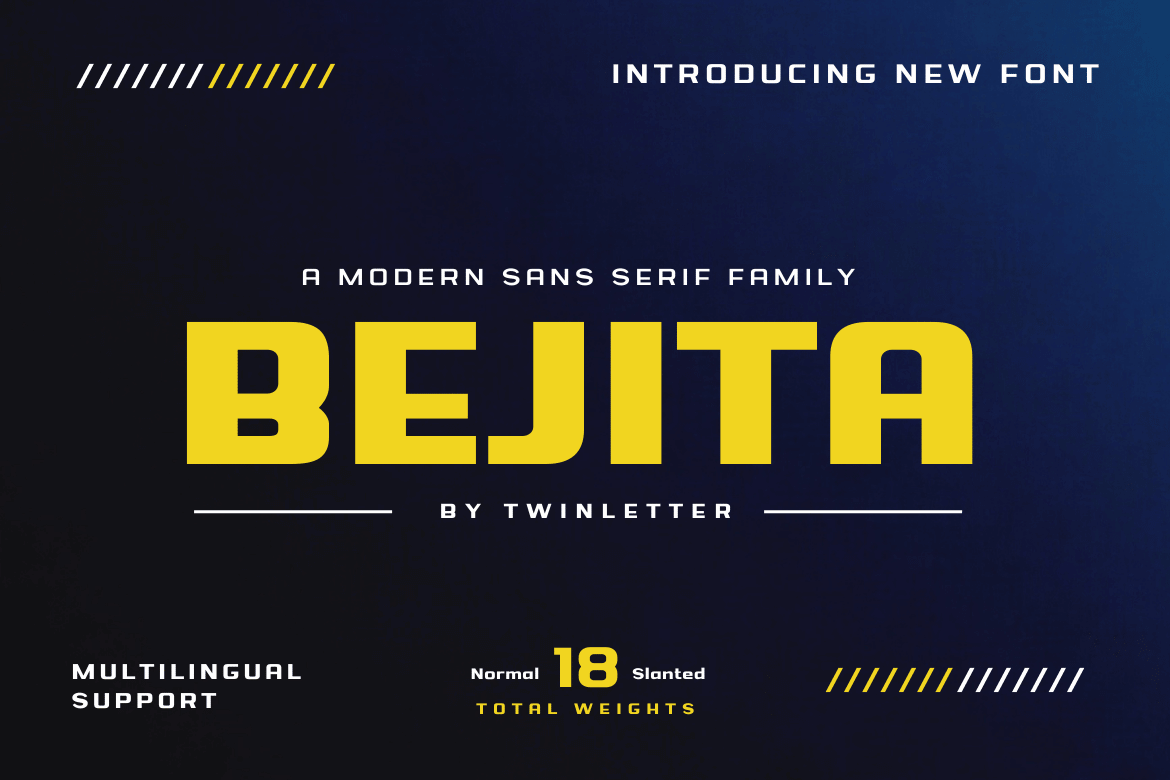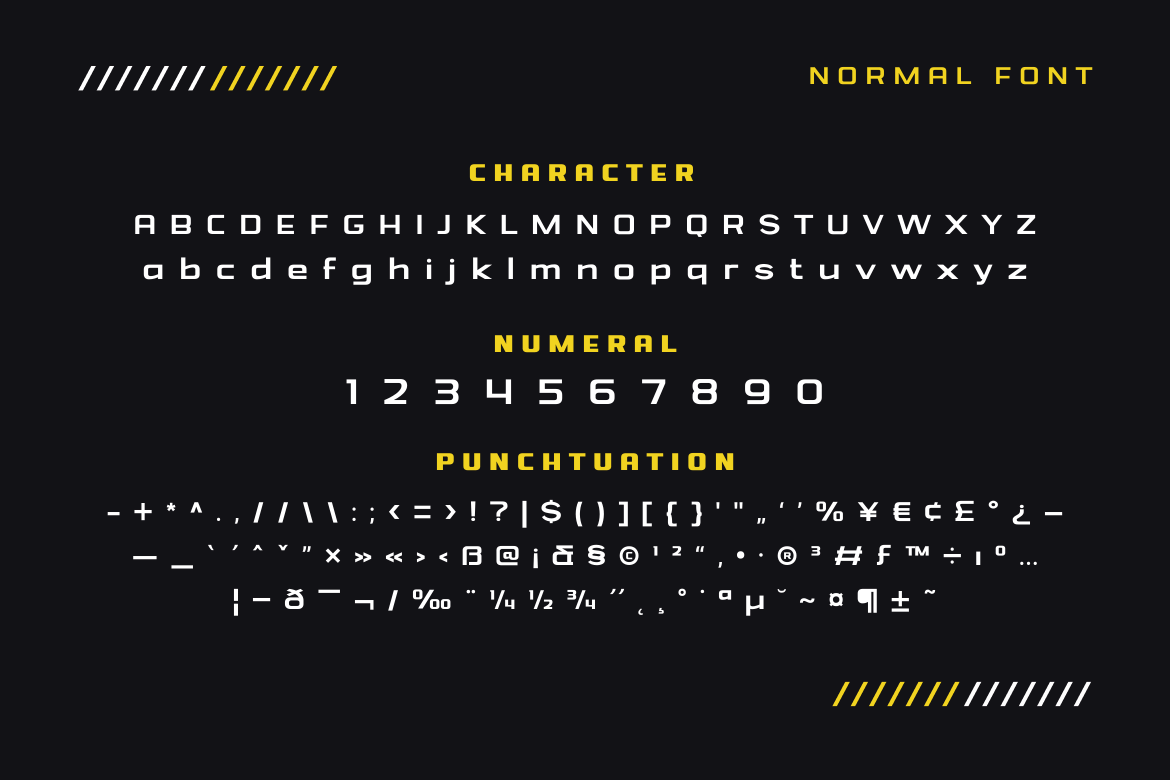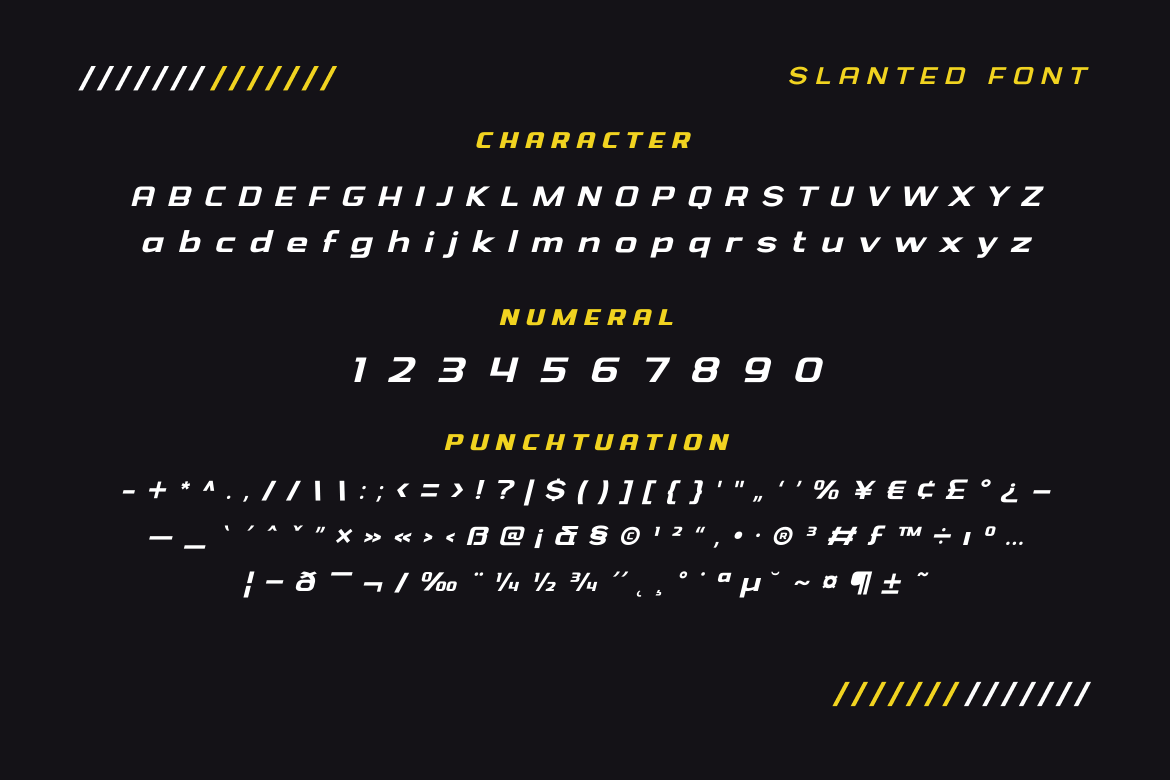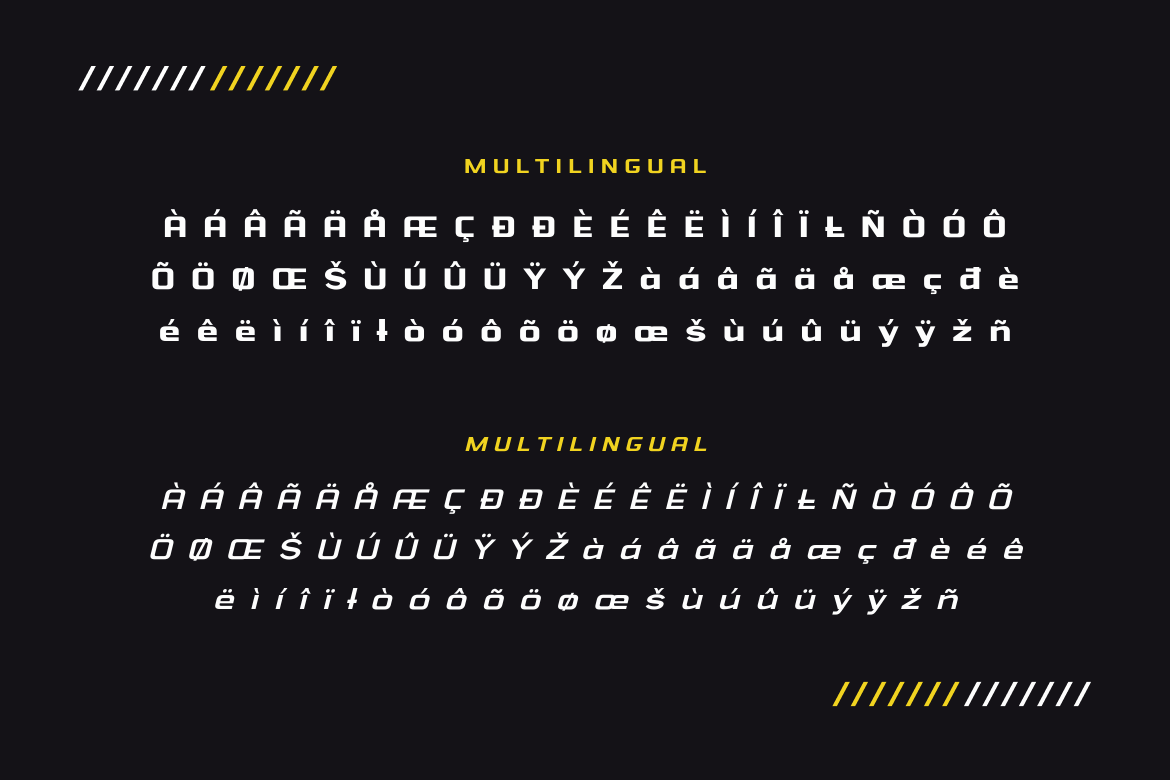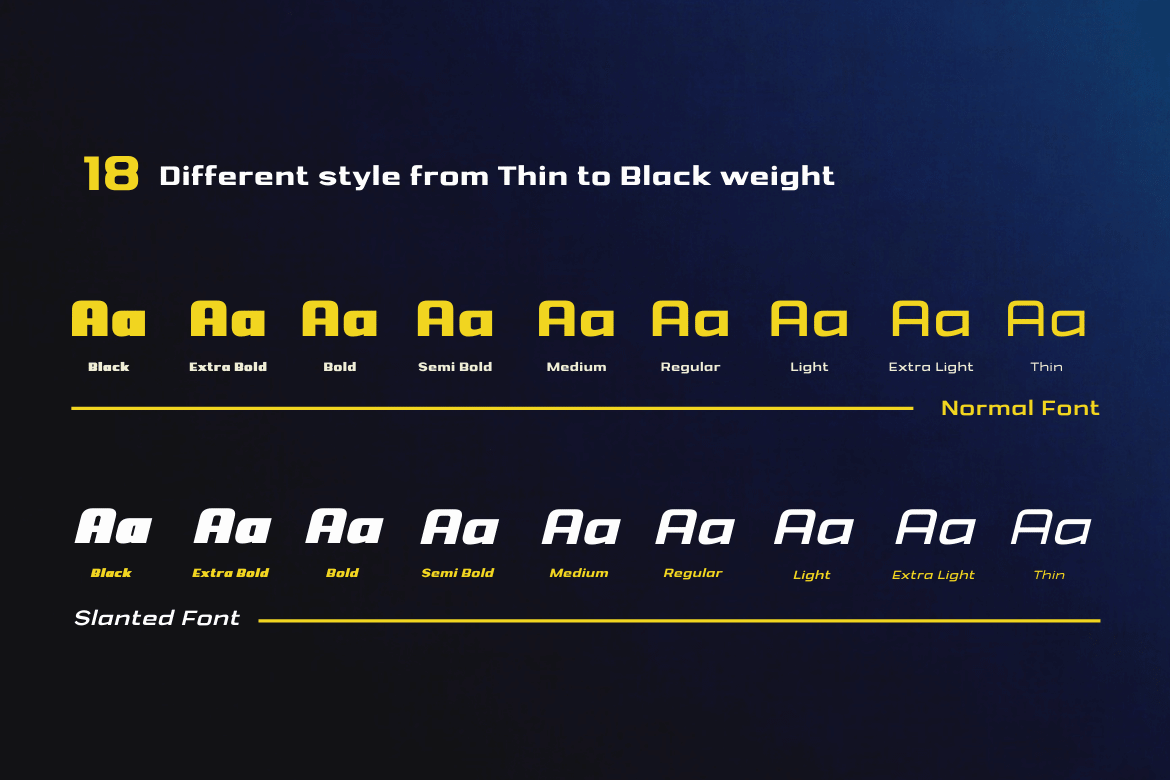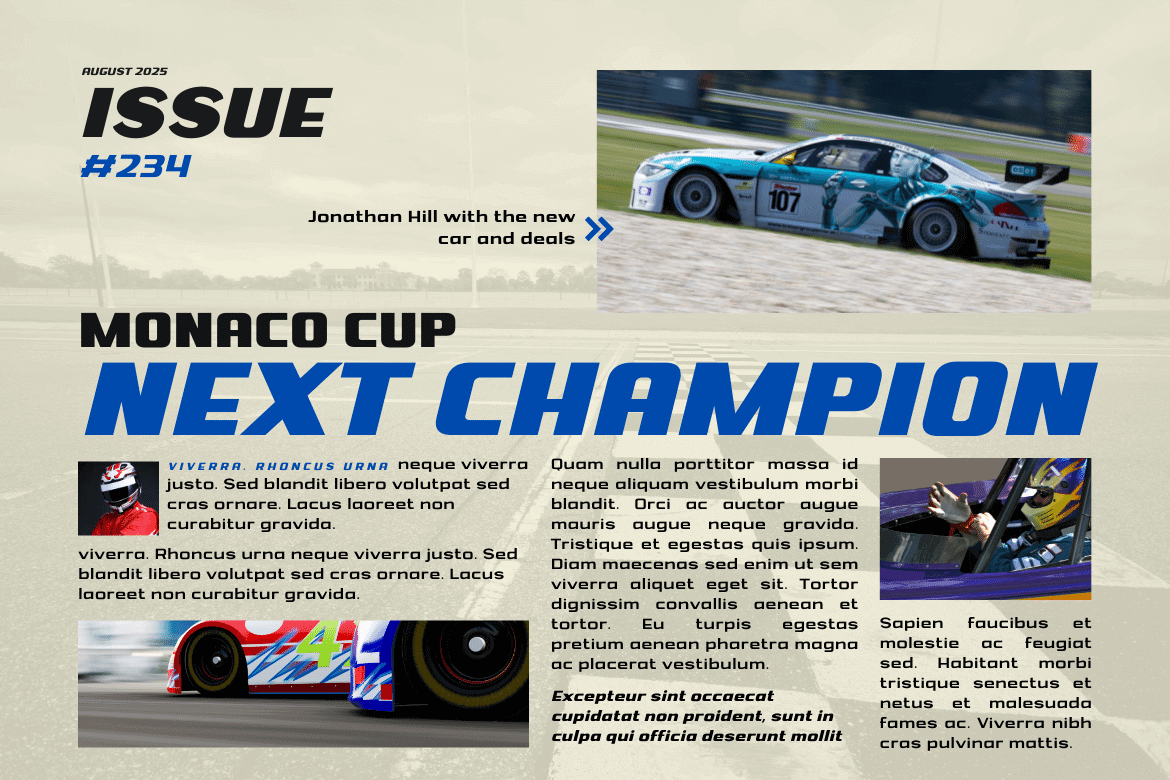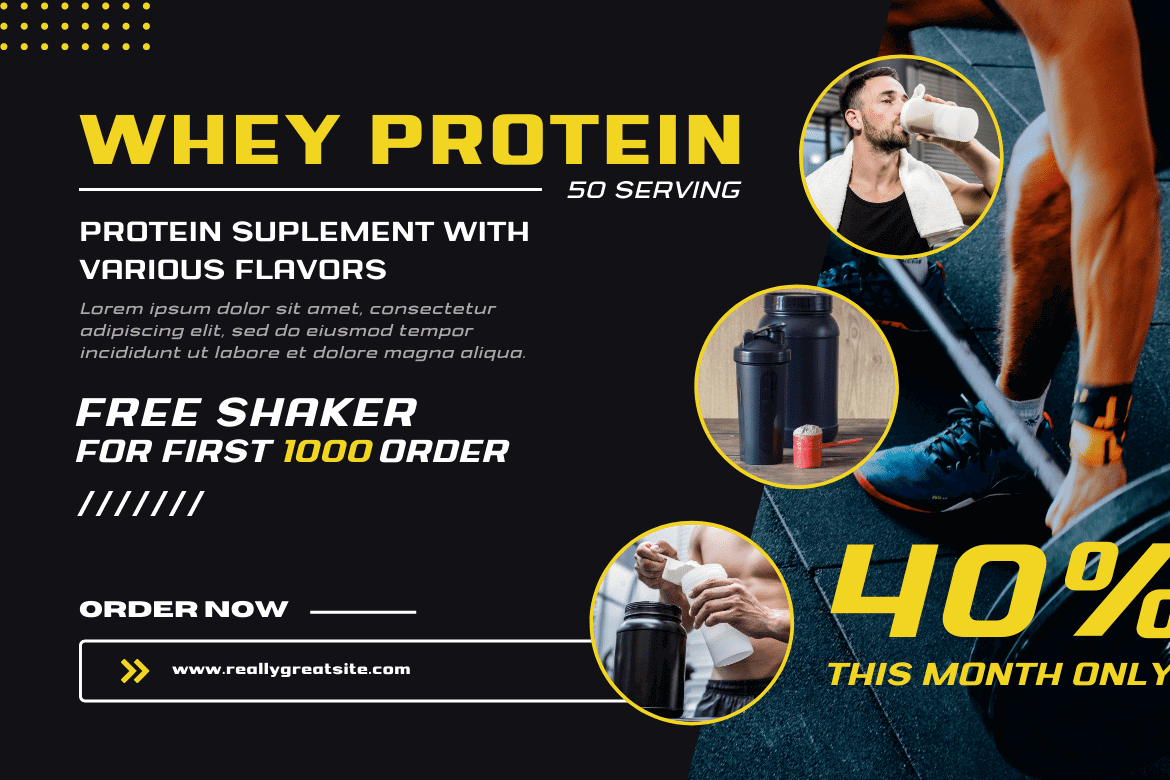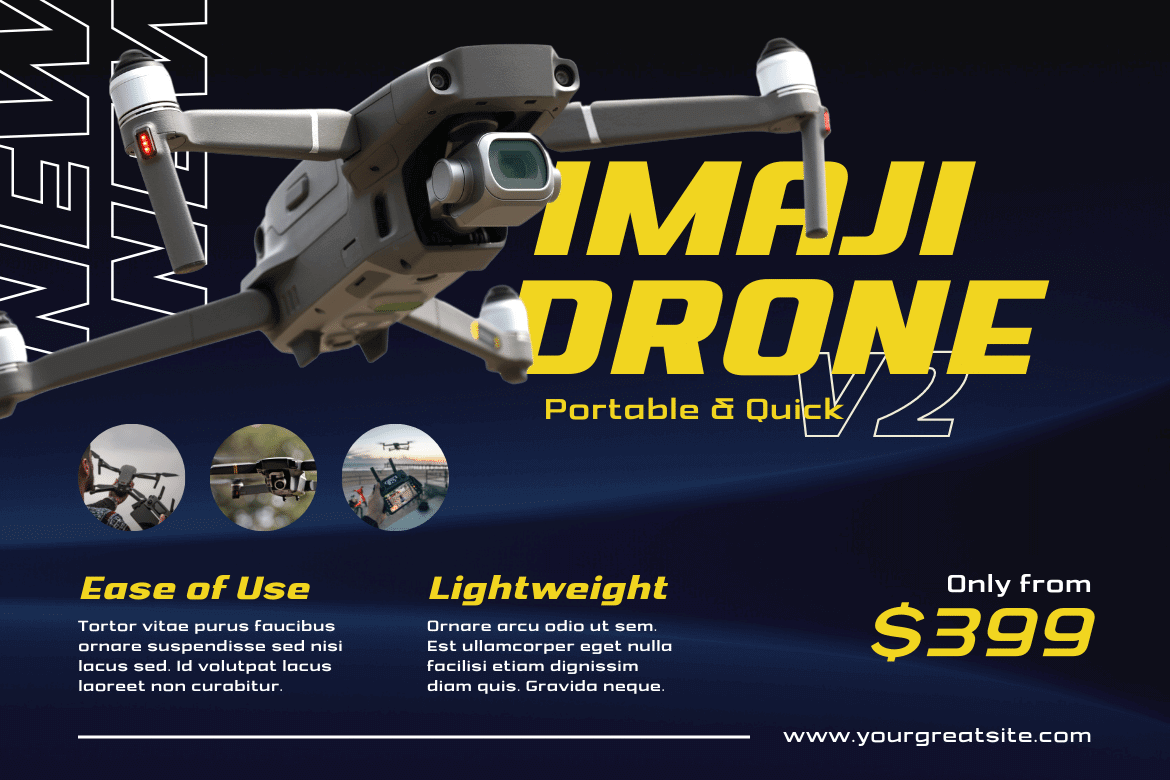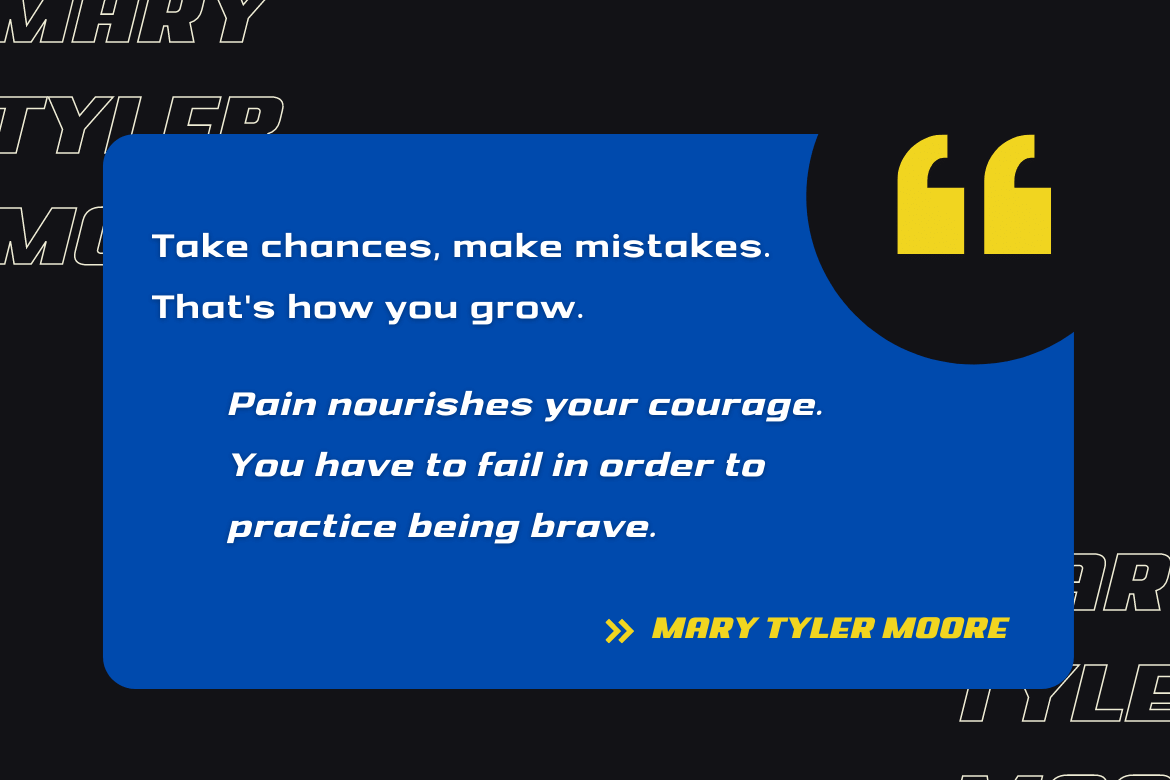
Bejita
Do you require a distinctive and eye-catching font for your company’s logo, social media posts, or other purposes? You’ll love the Bejita San Serif font family. It has been designed to assist and make it simple for you to create stunning graphic design projects of any kind: logos, posters, signs, packaging, font art, and so on, with 18 different styles to choose from.
• Fonts include multilingual support